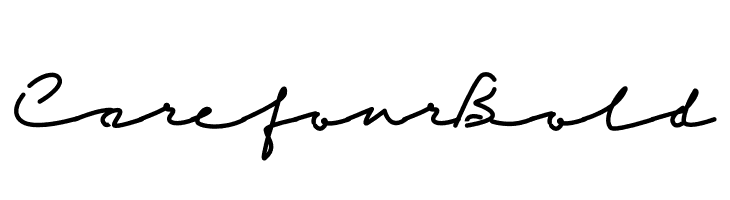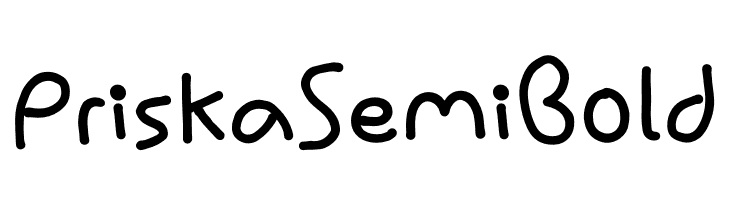
A cursive, handwritten-style font with elegant, flowing characters.
A graceful script font with flowing, interconnected characters and delicate strokes.
A dynamic, handwritten-style font with expressive and fluid characters.
A playful, hand-drawn style font with thin, rounded strokes.
A playful, hand-drawn font with rounded, irregular strokes and a whimsical style.
A playful, rounded font with a hand-drawn, casual style.
A playful, bold font with rounded edges and a hand-drawn aesthetic.
A whimsical, hand-drawn font with a playful and organic style.
A playful and whimsical font with bold, curvy letterforms.
A playful, handwritten font with flowing strokes and a casual style.